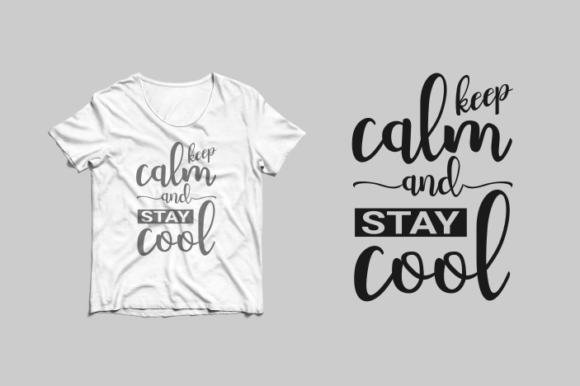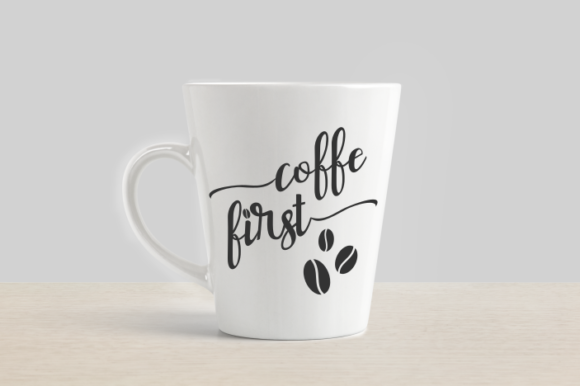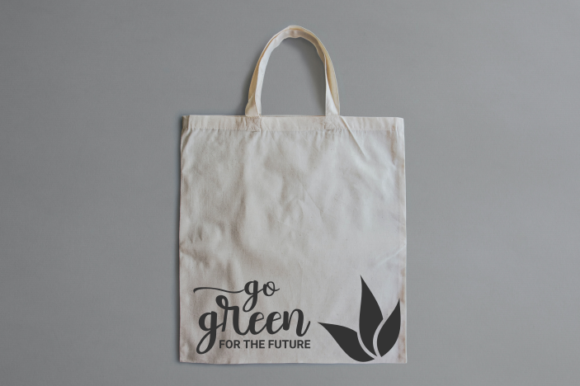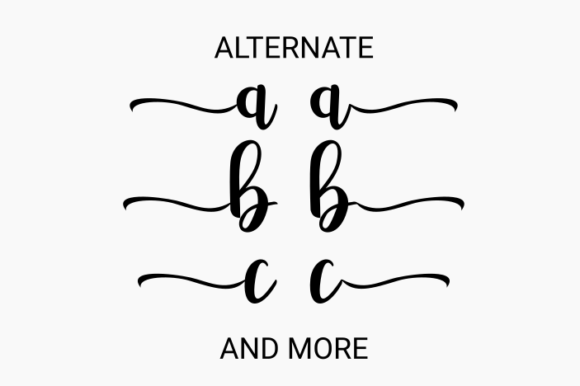
Introduction to Chimoll Font
As a designer, have you ever found yourself staring at a blank canvas, eager to bring a creative project to life? The right font can be the key to unlocking that perfect design. And when it comes to adding a touch of elegance and sophistication, few fonts stand out like the Chimoll Font. This magical handwritten font is a masterclass in timeless design, combining the classic with the modern to create a truly unique visual experience.
With its authentic calligraphy and friendly feel, the Chimoll Font is the perfect design resource for anyone looking to elevate their creative project. Whether you’re working on a branding campaign, designing a wedding invitation, or simply looking to add some flair to your social media graphics, this high-quality font is sure to impress. And the best part? It’s available for free download, making it an accessible and valuable addition to any designer’s toolkit.
So why settle for a generic font when you can make a statement with the Chimoll Font? Its versatility and classic style make it an ideal choice for designers who want to add a touch of sophistication to their work. With its transparent background and beautiful lettering, this font is sure to be a game-changer in your next creative project.
Key Features of Chimoll Font
- High-quality design resource ideal for creative projects, offering a unique and stylish look.
- Includes a range of characters, including uppercase and lowercase letters, numbers, and symbols.
Honest Review: Chimoll Font
As a designer, I’m always on the lookout for high-quality design resources to elevate my creative projects. Recently, I had the chance to try out the Chimoll Font, and I must say, it’s a gem. Here’s my honest review:
- The Chimoll Font is incredibly versatile, with a wide range of applications, from branding to typography.
- The high-quality design ensures that the font looks great on both transparent backgrounds and solid colors.
- The font is fully editable, allowing designers to customize it to fit their specific needs.
- The Chimoll Font is a relatively simple font, which may not be suitable for designers looking for a more complex or unique design.
- The font may not be suitable for use in very small sizes, as the details may become difficult to read.
Overall, I’m impressed with the Chimoll Font, and I think it’s a great addition to any designer’s toolkit. Its versatility, high-quality design, and free availability make it an excellent choice for a wide range of creative projects.
The Chimoll Font is ideal for creative projects, including logos, branding materials, and marketing collateral. Its unique design makes it perfect for businesses looking to stand out from the competition.